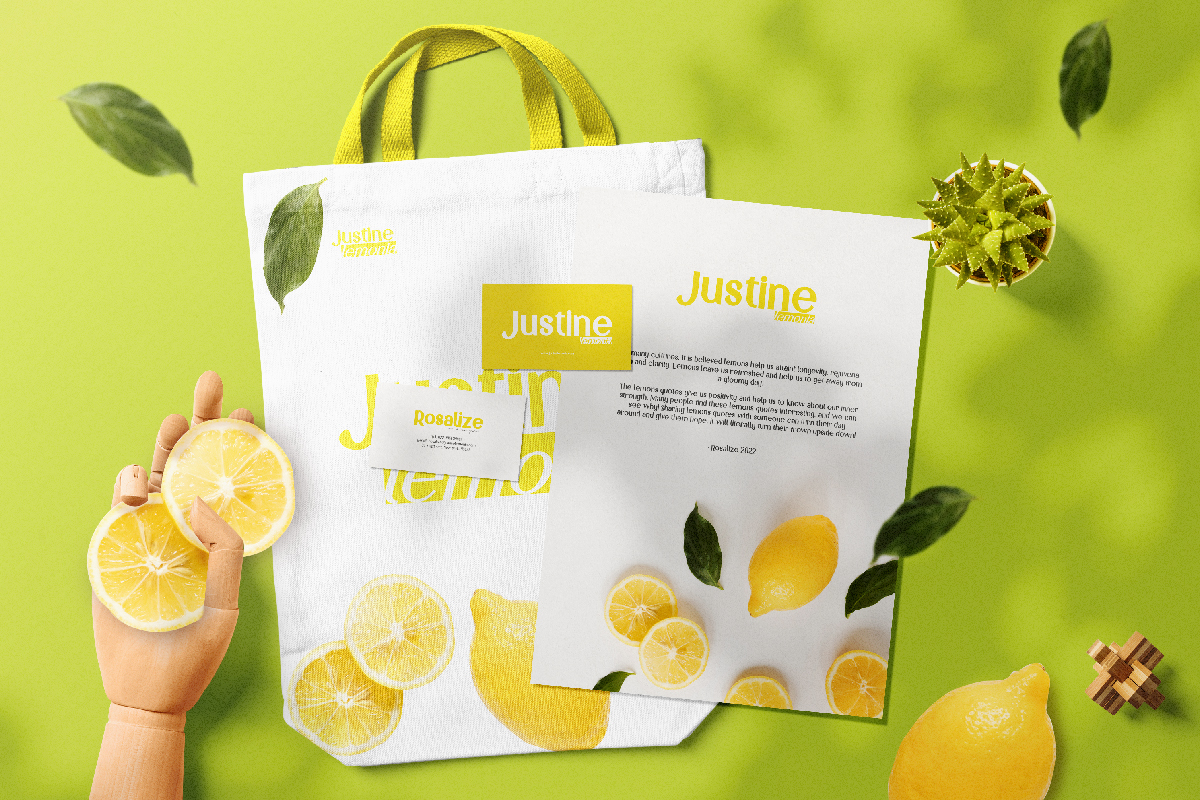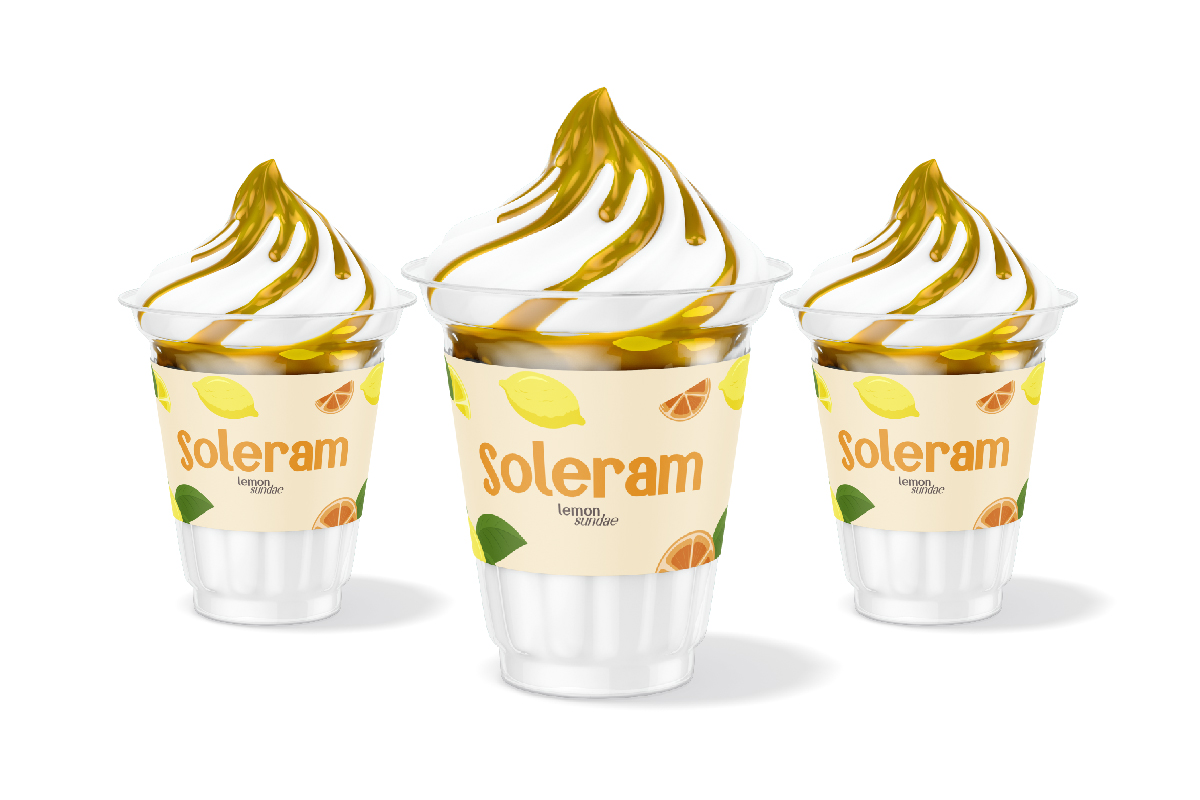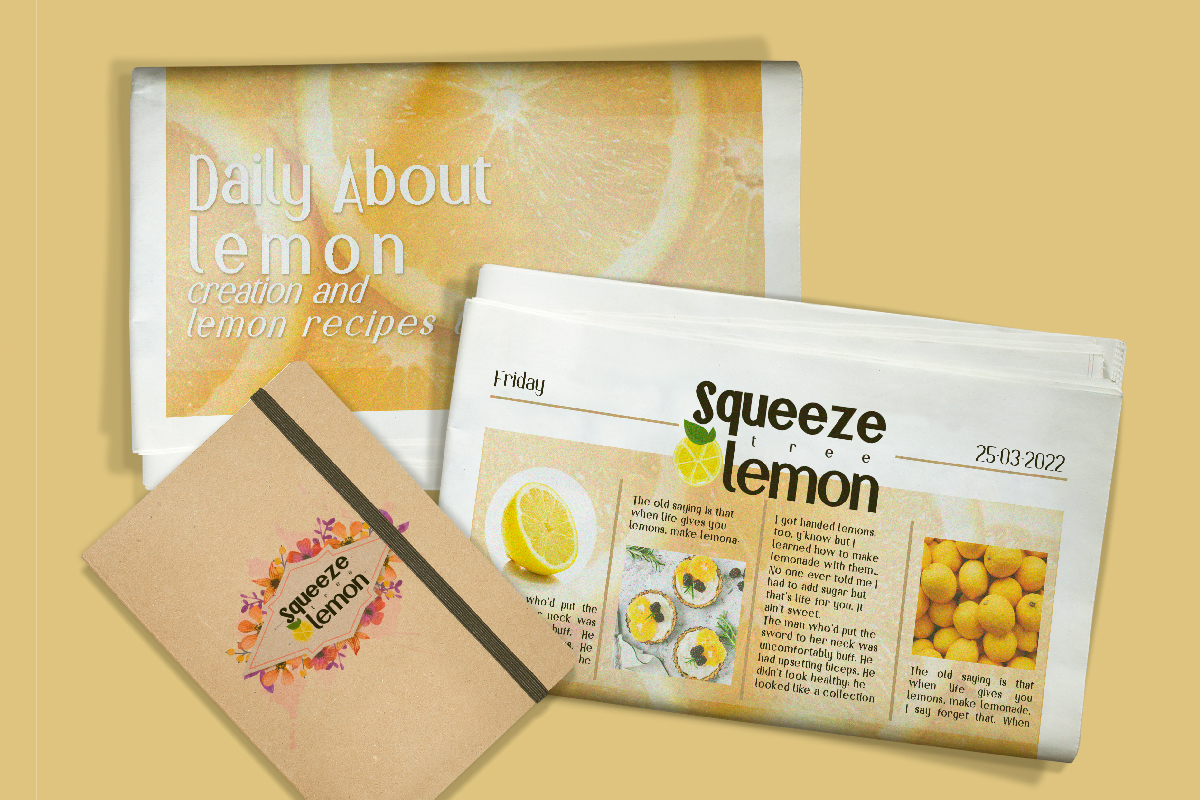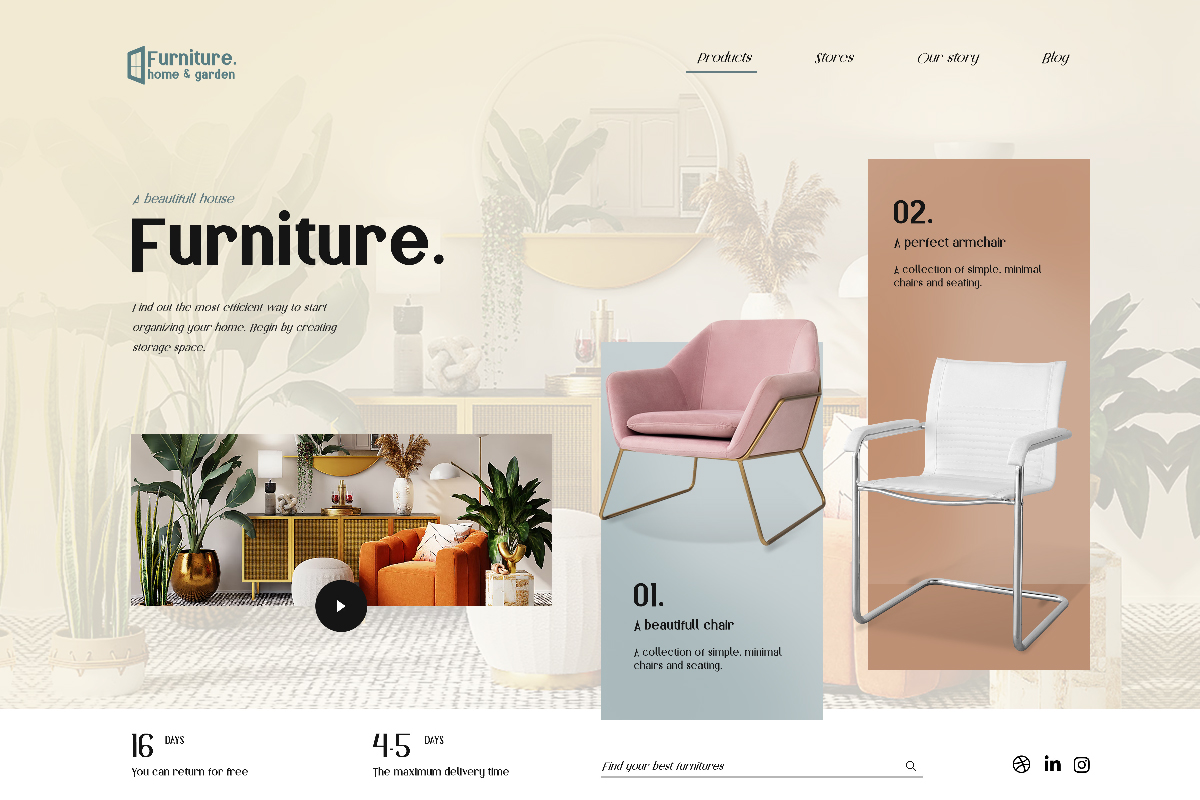
Lemon Sundae Sans Serif Font
It’s a fresh modern sans serif font with ten weight/styles, exclusively crafted by NoahType. This font has ten styles that you can use on many occasions, namely regular, italic, thin, thin italic, light, light italic, medium, medium italic, bold, and bold italic. It will be the best choice for event organizer, publishing, printing, food and beverage, interior design, firniture, etc.
Lemon Sundae Font include full set of All Caps Basic Characters, Numerals and Punctuation. This font will be suitable for various projects such as poster, billboard, product packaging, custom design, business card, signage, invitation, brand logo, label, quote, web page, and more!